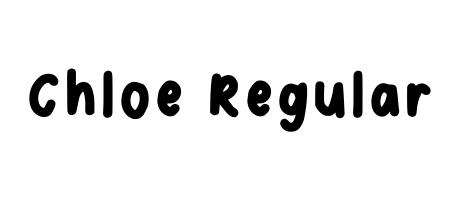
Chloe
By Chloe Chan
Chloe Regular is a playful, rounded sans-serif typeface. Its curves are gentle and inviting, creating a friendly, approachable feel. The letters are slightly condensed, giving it a compact yet legible look. It suggests a modern, yet slightly whimsical aesthetic, perfect for branding or headlines needing a touch of charm.